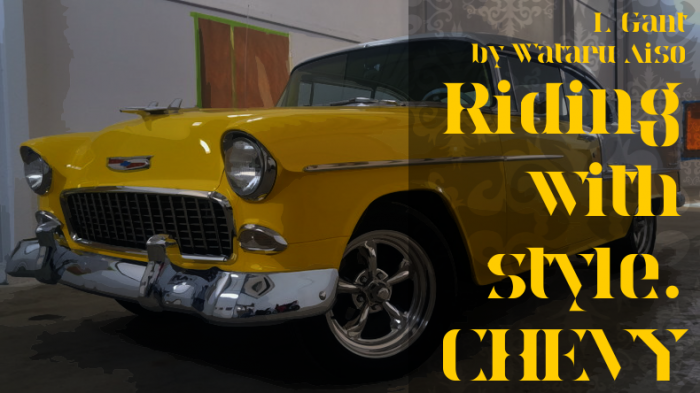
Beautiful fi ligature and really great lowercase g. I like it :D
I suppose you forgot about a serif at the bottom of your Y :)
Really cool designs!(CHEVY)
Thank you for pointing that out. I definitely forgot.
Jeepers, that is a great design.